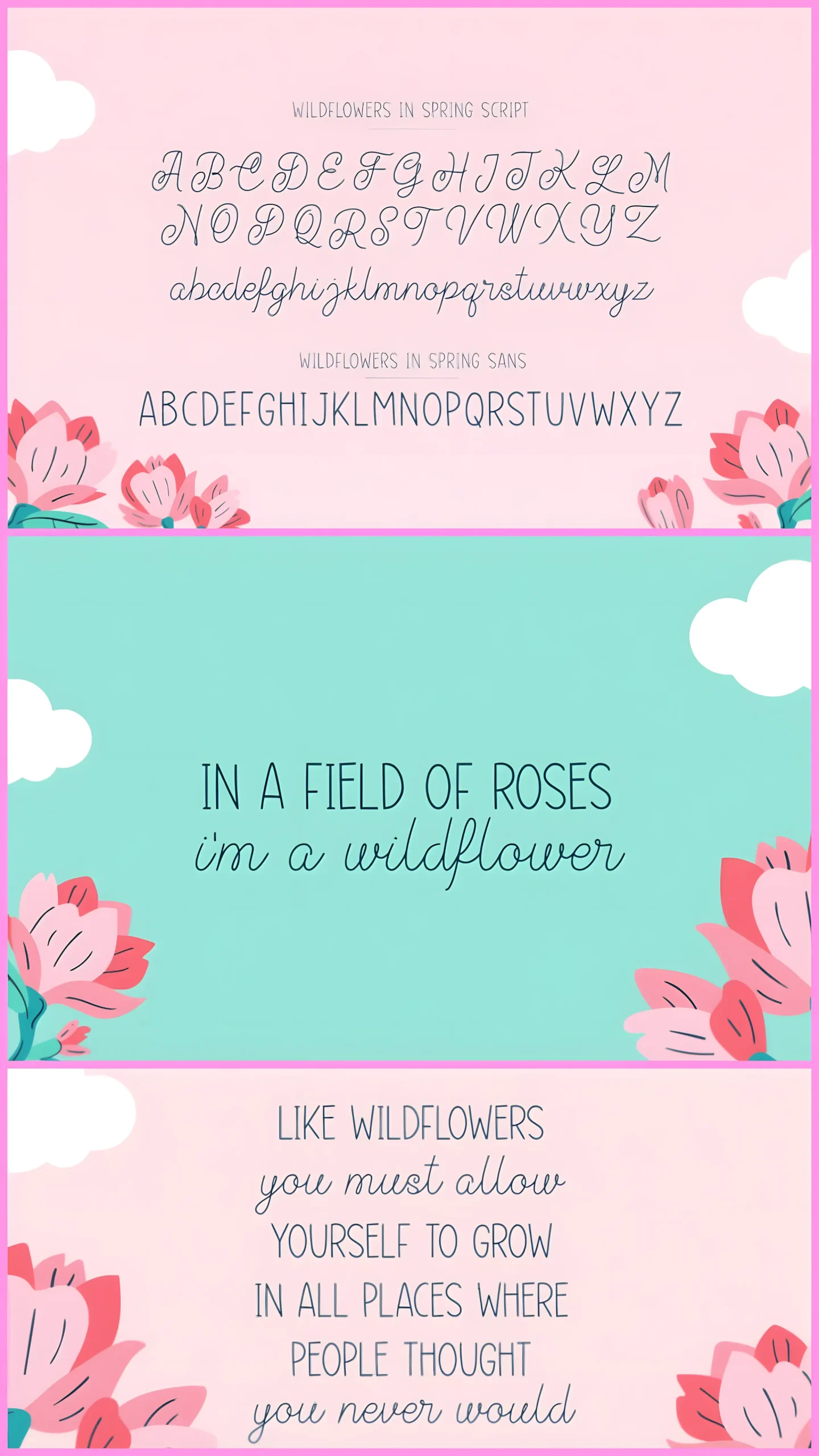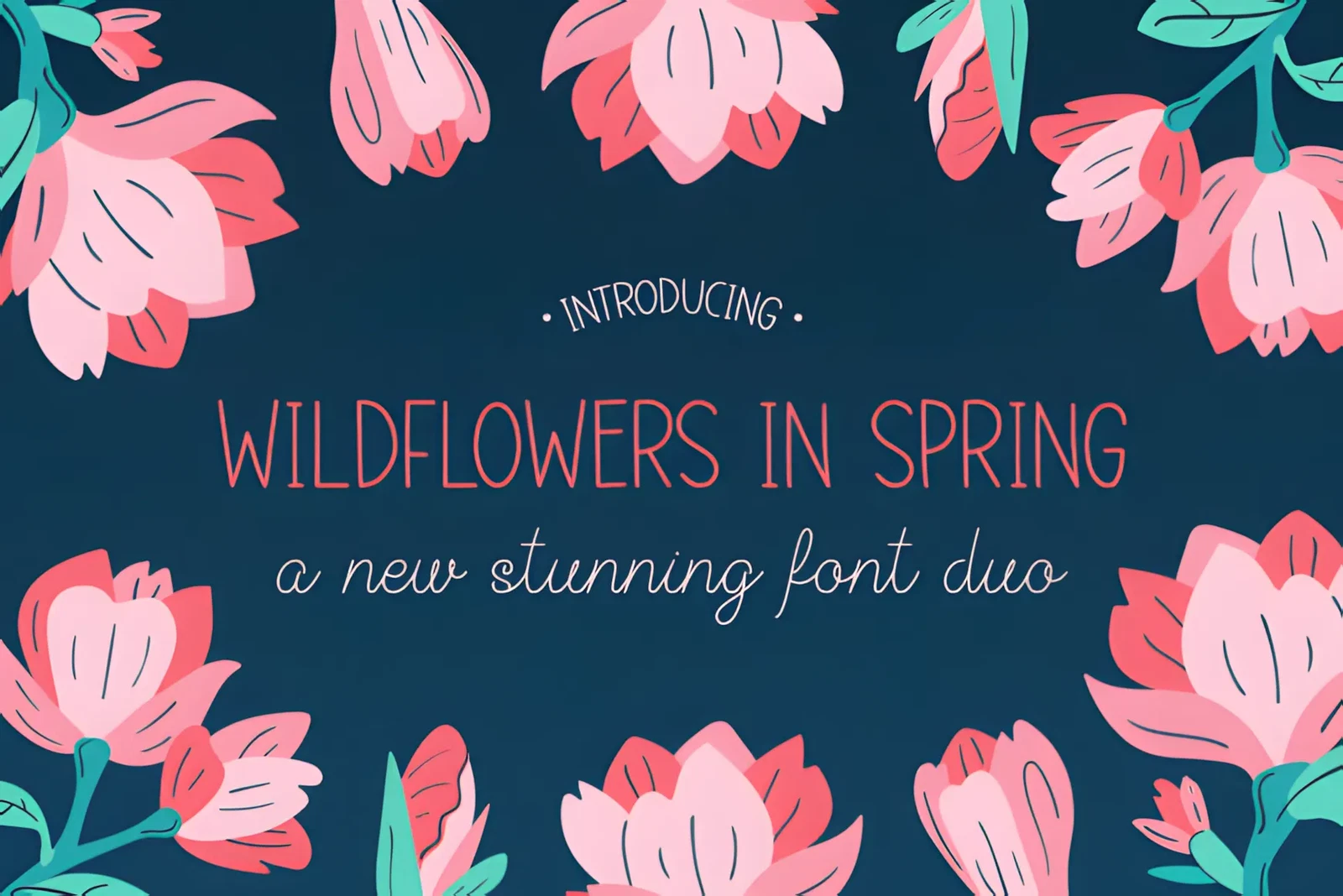
Wildflowers in Spring is a cool font combo that feels like a walk in a spring garden. It mixes a pretty, handwritten style with a simple, clean font, giving designers a nice mix of fancy and easy-to-read. The handwritten part is thin and flows nicely, feeling natural, while the other font keeps things clear. It's easy to use in lots of designs.
For blogs, Wildflowers in Spring is great for telling stories and adding a bit of style. It looks good on titles, quotes, headings, and anything inspirational, mostly for blogs about lifestyle, weddings, art, or design. The mix of the two fonts helps make things interesting without being too much, so your blog is easy to read.
This font pair goes great with anything about love, nature, growing, or being yourself. It looks awesome with flowers, soft colors, and simple designs. It's a solid pick for blog pictures, things you can print, and social media posts that go with writing. Whether it's on a screen or printed, the fonts look good and are easy to read.
Basically, Wildflowers in Spring isn't just a bunch of pretty fonts—it helps you tell stories. It makes blog posts feel soft, inspires, and touches people's hearts, which is just what you want for posts about art, seasons, and good design.